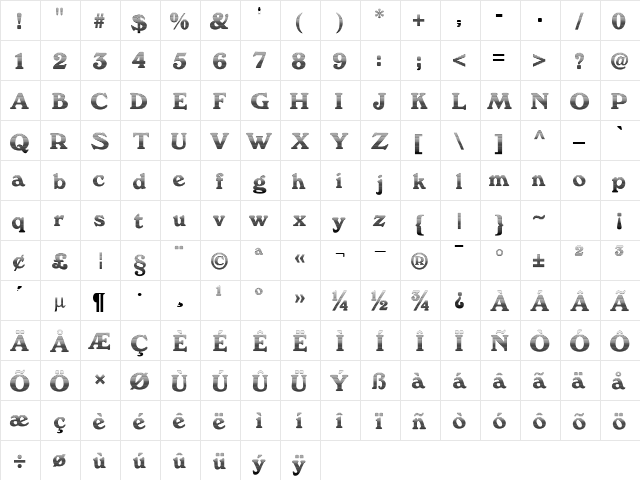
We3 DB Normal Font Preview
We3 DB Normal
We3 DB Normal Font Details
Design Context for We3 DB Typeface
We3 DB takes a measured approach to typography — its balanced proportions and neutral character make it a reliable workhorse for both digital and print work.